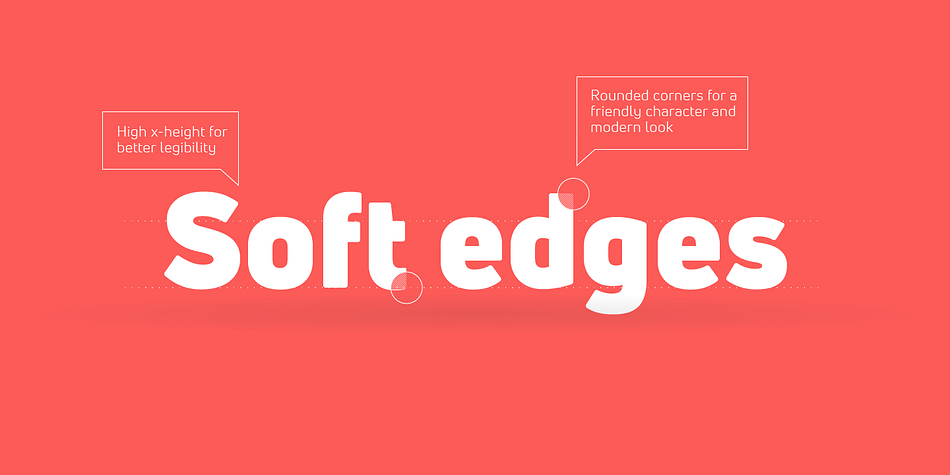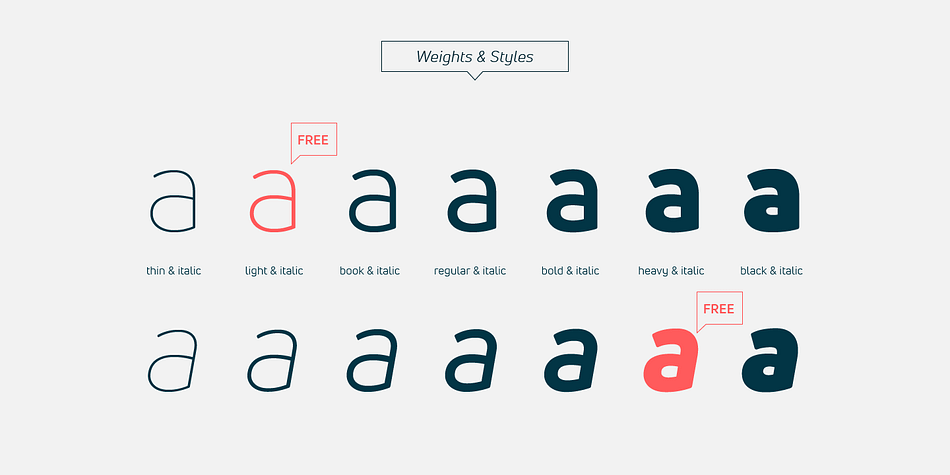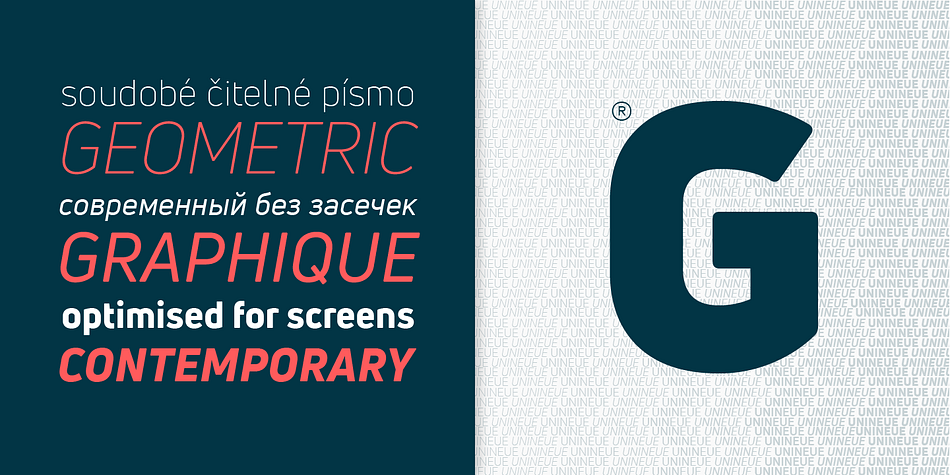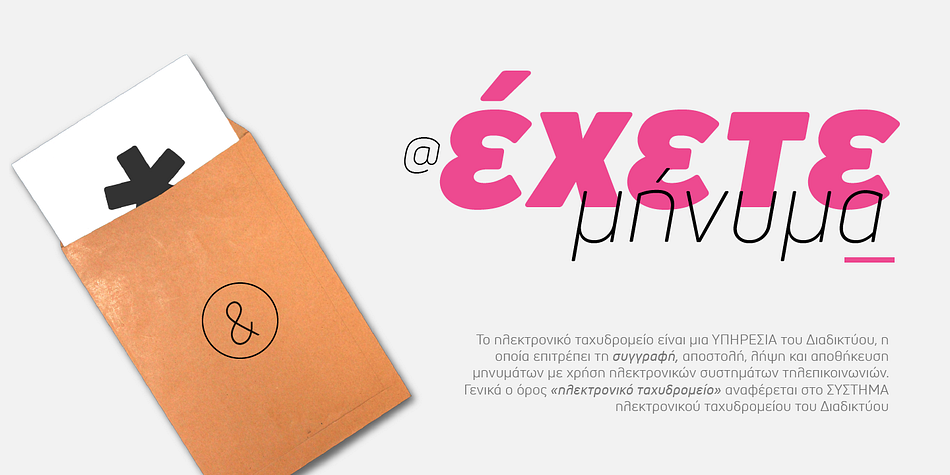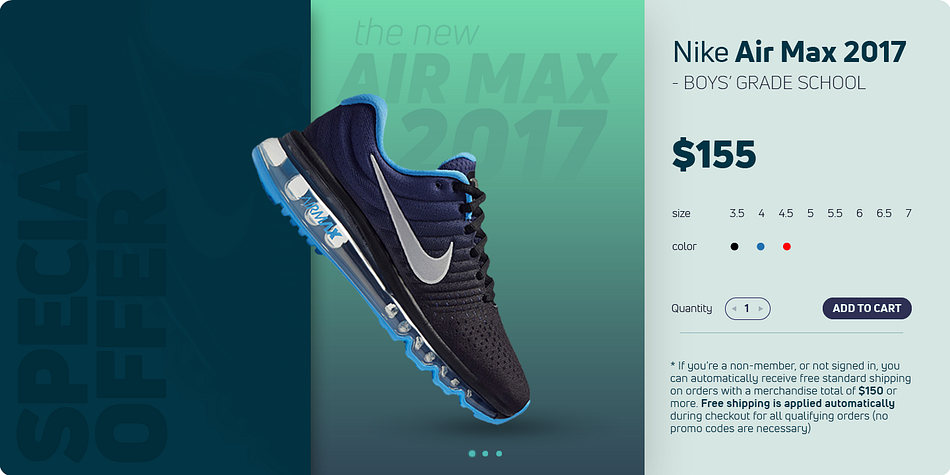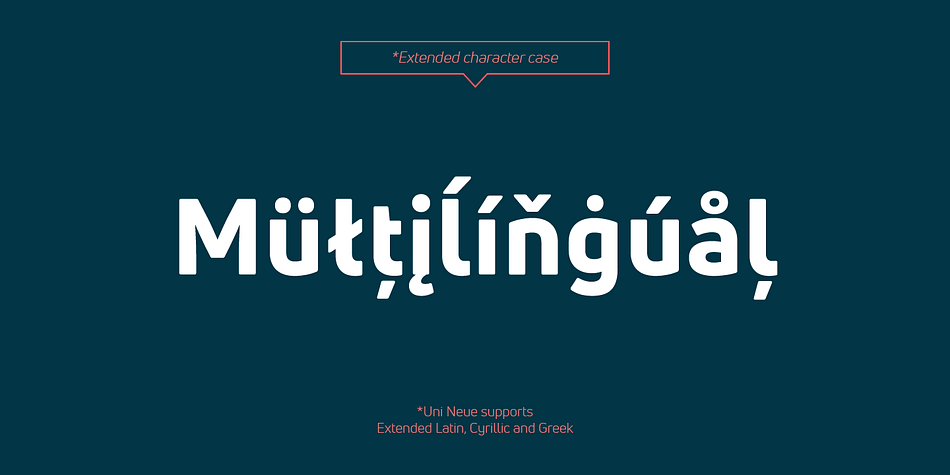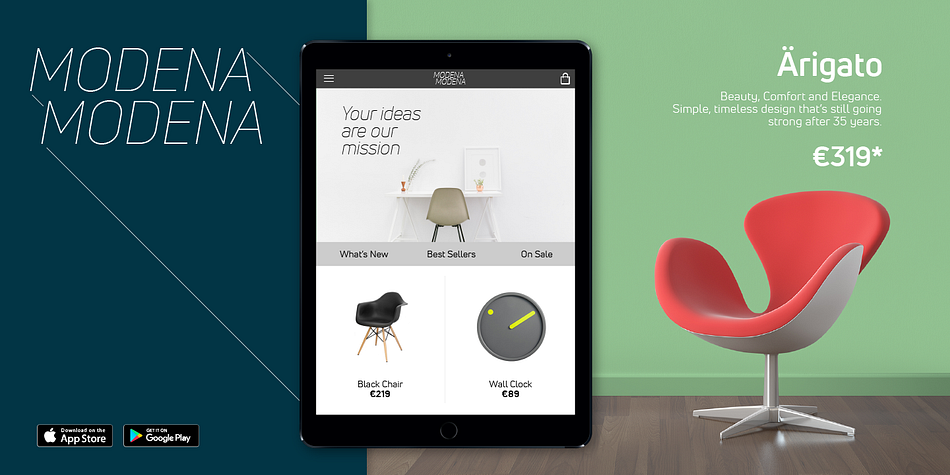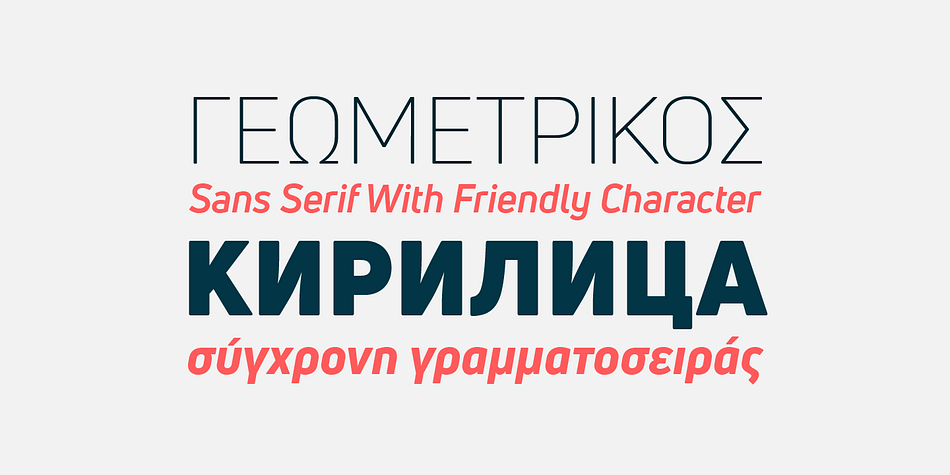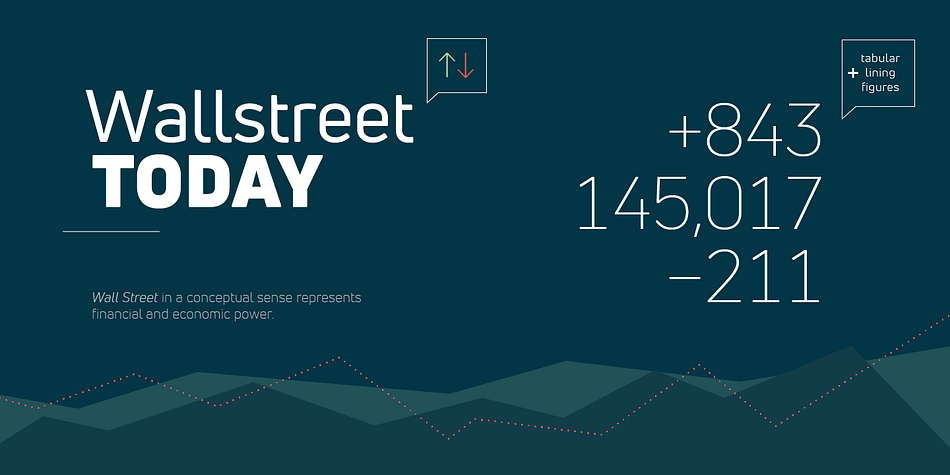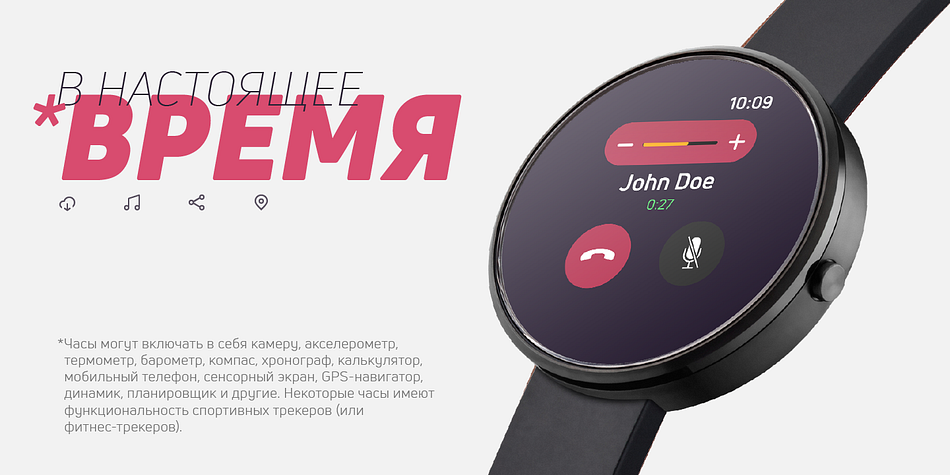
Designed by Svetoslav Simov and Plamen Motev, Uni Neue is a sans serif font family. This typeface has fourteen styles and was published by Fontfabric.
Uni Neue is the whole new redesigned version (remake) of Uni Sans – one the most recognizable and signature font families of Fontfabric type foundry. From major changes like proportions, widths and thickness (weights) to the smaller details, this new family enables us to feel and understand the font at a completely new level.
Uni Neue is а modern sans serif with a distinctive character and geometric feel. The rounded corners give the typeface a friendly look, yet it retains a professional quality suitable for branding even the most serious corporate identities. The attention to detail paid during its development means that this typeface offers a vast range of design possibilities – it helps users create eye-catching designs and brands that really stand out. It is perfect for TV, screen, editorial and publishing, logos, branding, advertising and packaging. It supports a wide range of languages, including Extended Latin, Cyrillic and Greek. The family has seven weights, ranging from Thin to Black, with corresponding italics. The font was manually hinted to ensure great web and desktop performance.